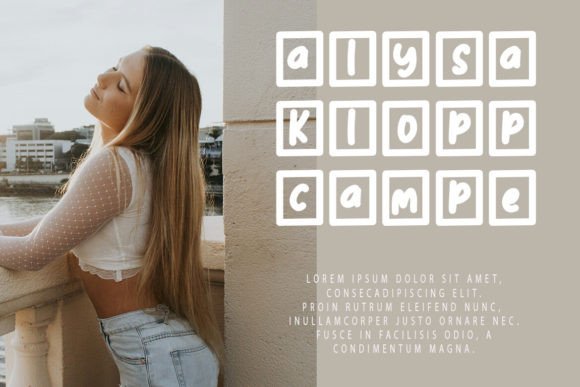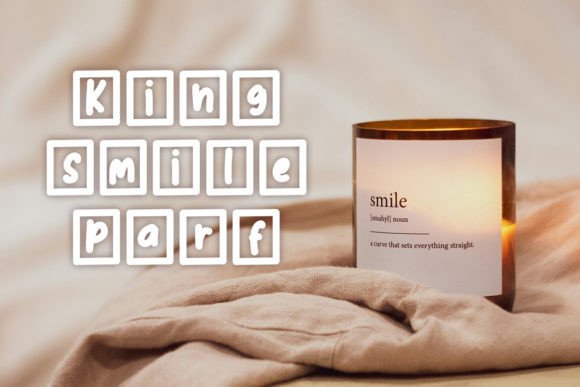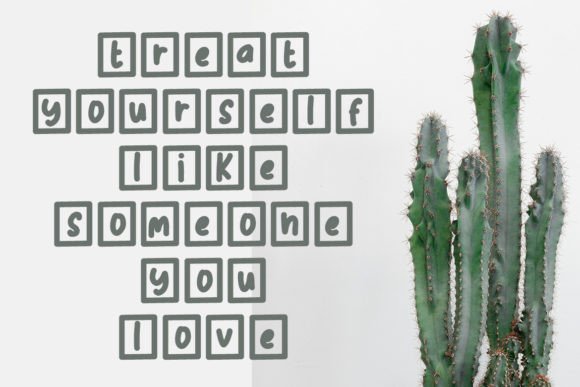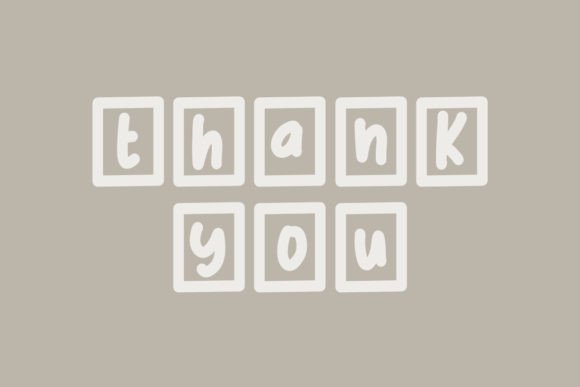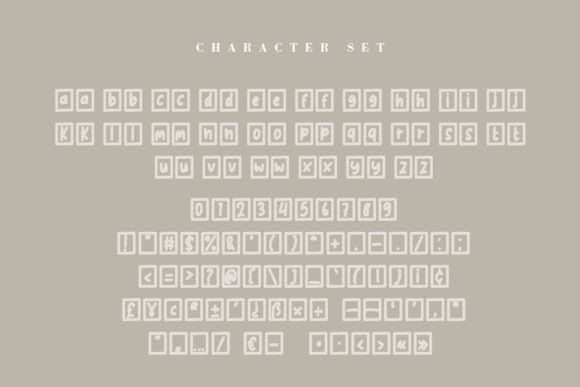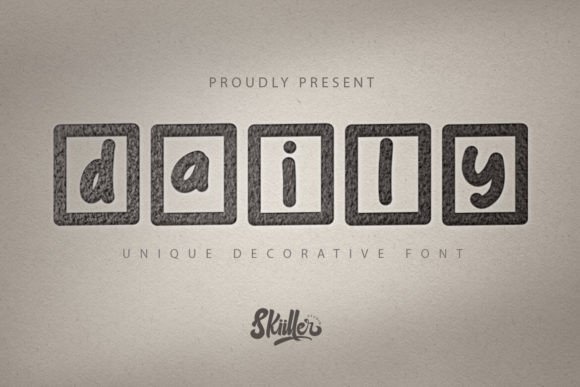
Introducing Daily Font: The Charming Handwritten Style for Creative Projects
In the world of typography, fonts play a crucial role in conveying the tone and personality of a project. For designers and crafters looking to add a touch of whimsy and charm to their work, the Daily Font is an excellent choice. This decorative handwritten style features neatly placed letters inside squares, giving the text a unique and artistic look that’s sure to make it stand out.
What is Daily Font?
The Daily Font is a decorative handwritten font where each letter is carefully crafted and placed inside a square. This distinctive design element gives the text a charming, hand-drawn feel that’s perfect for creative projects that need a touch of personality. Whether you’re working on a DIY craft, a graphic design project, or a digital illustration, the Daily Font is sure to add a dash of character and whimsy.
Key Features of Daily Font
- Unique and Artistic Look: The Daily Font’s square-enclosed letters create a visually appealing and artistic look that’s sure to grab attention.
- Handwritten Style: The font’s handwritten style gives it a warm, personal feel that’s perfect for projects that need a touch of personality.
- Neatly Placed Letters: Each letter is carefully placed inside a square, creating a sense of order and structure.
- Charming and Whimsical: The Daily Font’s distinctive design makes it perfect for projects that need a dash of charm and whimsy.
Uses for Daily Font
The Daily Font is versatile and can be used in a variety of creative projects, including:
- DIY Crafts: Add a personal touch to your DIY crafts, such as scrapbooking, card making, and journaling.
- Graphic Design: Use the Daily Font in your graphic design projects, such as brochures, posters, and social media graphics.
- Digital Illustration: Add a touch of personality to your digital illustrations, such as comics, cartoons, and animations.
- Hand Lettering: Use the Daily Font as inspiration for your hand lettering projects, such as quotes, posters, and signs.
Tips for Using Daily Font
To get the most out of the Daily Font, here are some tips to keep in mind:
- Use it Sparingly: The Daily Font is best used sparingly, as it can be overwhelming if overused.
- Mix and Match: Experiment with mixing and matching the Daily Font with other fonts to create a unique look.
- Play with Colors: Have fun with colors and use the Daily Font in different colors to add visual interest.
- Experiment with Sizes: Play with different font sizes to create visual hierarchy and add emphasis.
The Daily Font is a charming and artistic handwritten font that’s perfect for creative projects that need a touch of personality. With its unique and artistic look, neatly placed letters, and charming, hand-drawn feel, it’s sure to make your project stand out. Whether you’re a designer, crafter, or DIY enthusiast, the Daily Font is an excellent choice for adding a dash of whimsy and charm to your work.